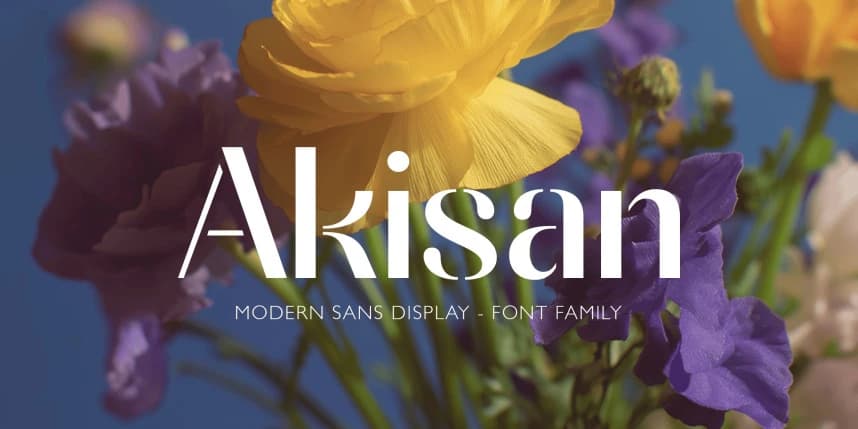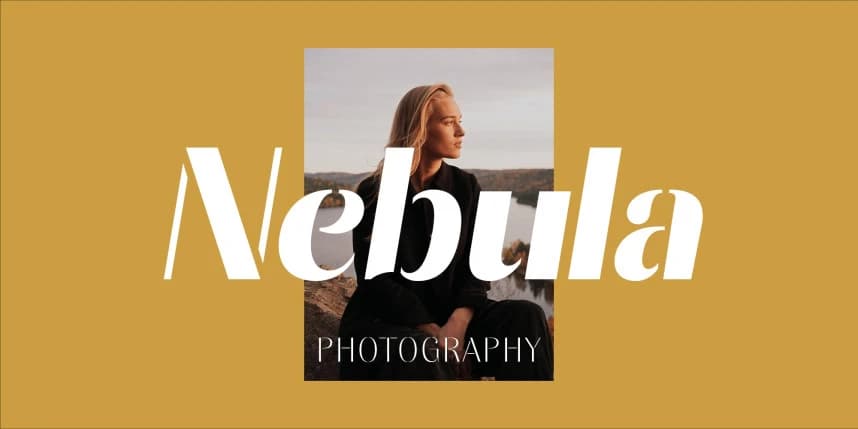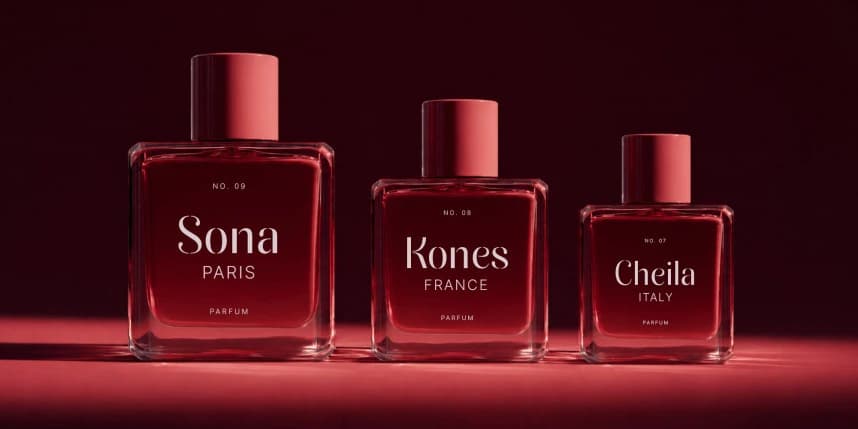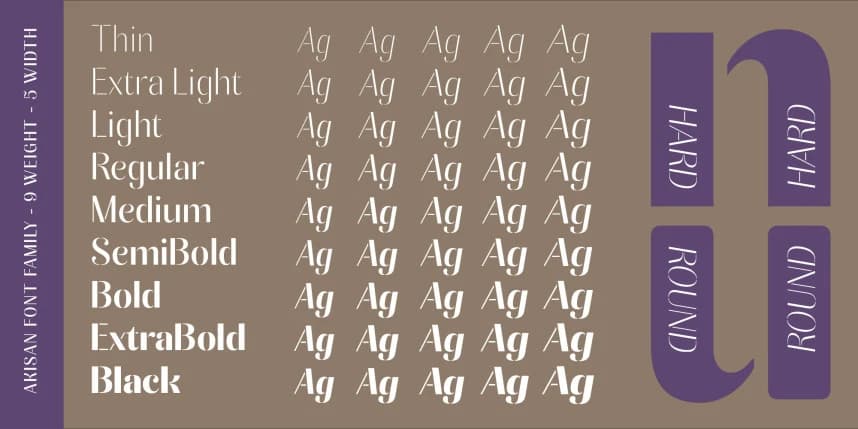
Akisan Font Family
Akisan Font Family is a modern sans serif stencil font that blends editorial elegance with a clean, contemporary edge. Its letterforms feature subtle contrast, balanced proportions, and distinctive details that create a strong visual identity while maintaining clarity.